Great graphic design is powered by great font selection. But picking great fonts is a challenge for most people. Luckily, Canva has made adding great fonts to your designs much easier. In this tutorial, our team of design experts will cover how to recreate the Harry Potter font in Canva.
What is the Harry Potter Font?
The “Harry Potter” font, often associated with the logo and branding of the Harry Potter franchise, is known as “Harry P.” This custom typeface was designed specifically for the series and films to create a distinct and recognizable look that aligns with the magical and whimsical world of Harry Potter.
“Harry P” is a serif font with distinctive, somewhat ornate letterforms. It is characterized by its unique capital letters, which include lightning bolt-like serifs, adding a touch of magic and mystique to the text. The font is instantly recognizable to fans of the Harry Potter series and is often used in various merchandise, book covers, and promotional materials related to the franchise.
What is the Closest Equivalent Font in Canva to The Harry Potter Font?
Canva does not offer the official Harry Potter font by default. However, Canva does offer several fonts similar to Harry Potter, including Benne which contains ornate and magical details reminiscent of the original Harry Potter font:
Sample Benne Font:
Benne Font Used to Recreate Harry Potter Font:
Harry Potter Logo Font:
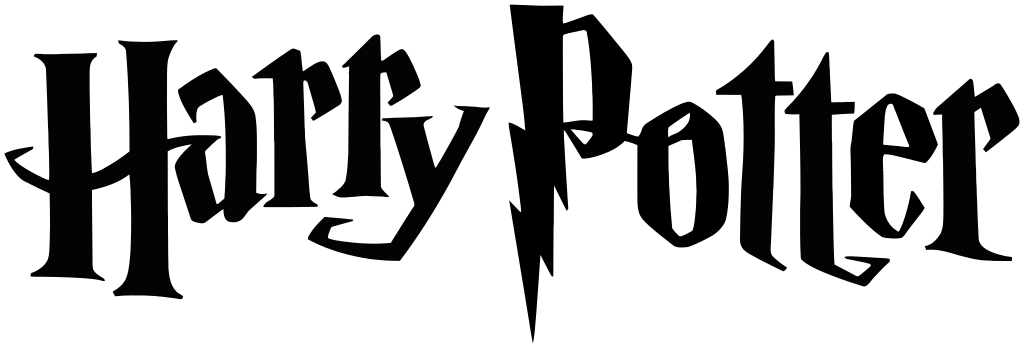
Alternative Harry Potter Fonts for Canva